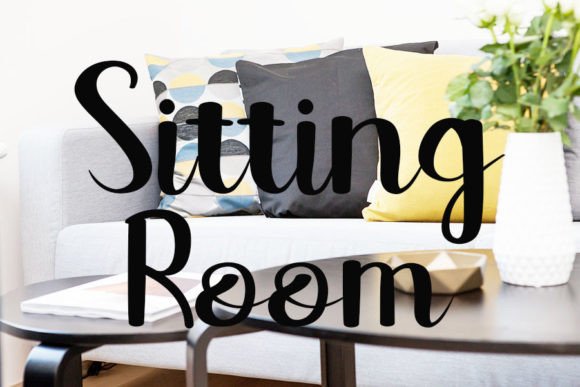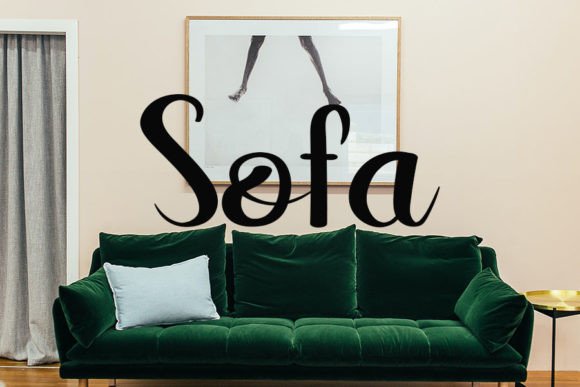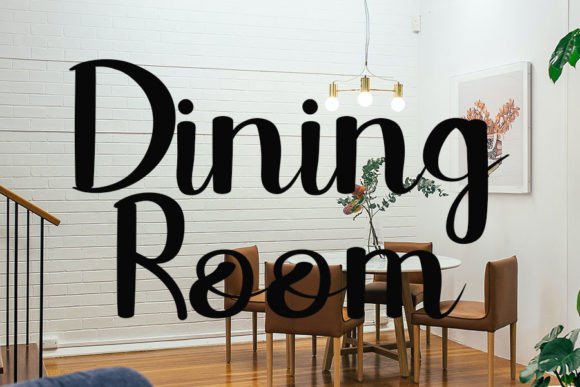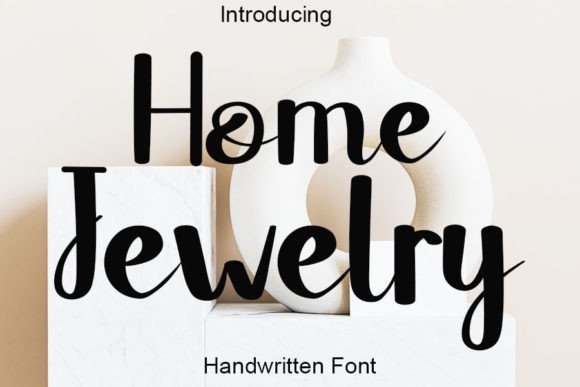
Introduction to Home Jewelry Font
Home Jewelry is a neat and beautiful handwritten font described by an elegant touch, perfect for your favorite projects.
Fall in love with its incredibly distinct and timeless style, and use it to create spectacular designs .